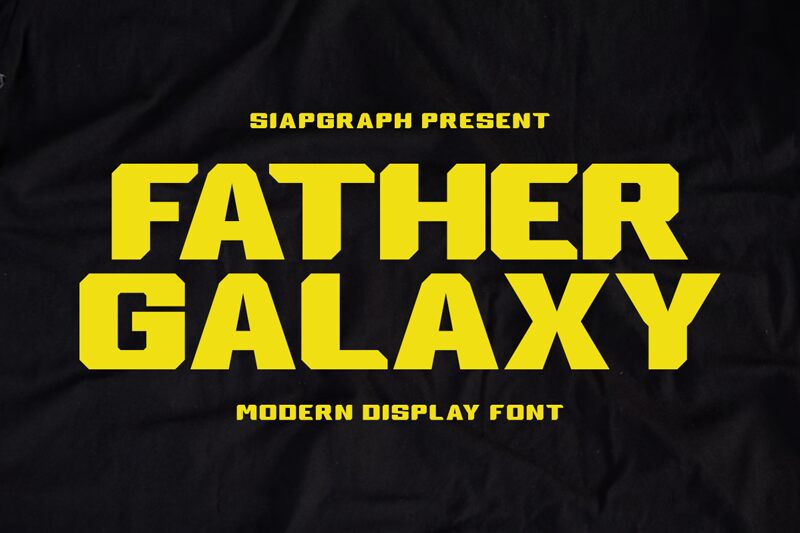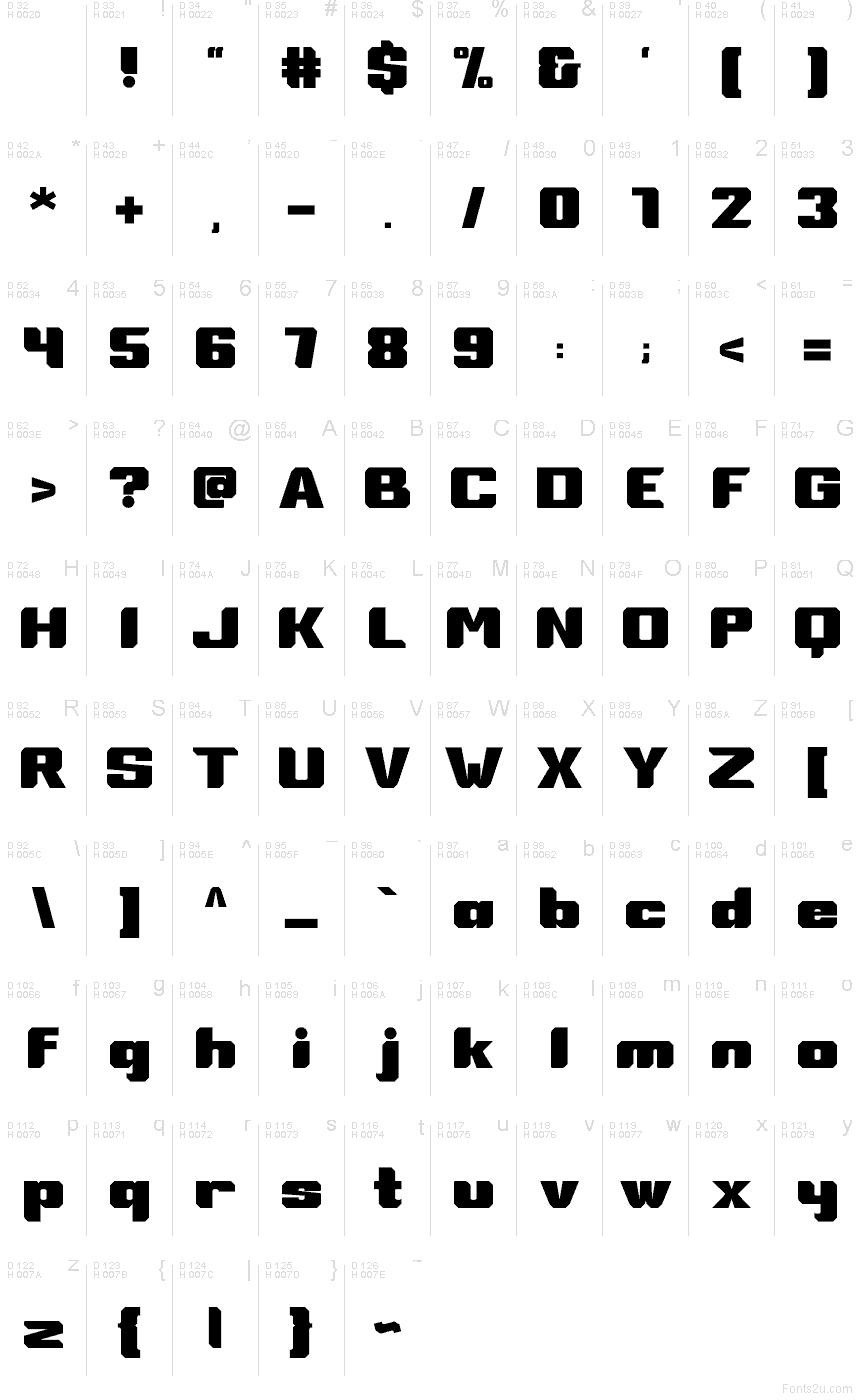
Father Galaxy by SiapGraph is a free retro-futurist display font with chunky letters, clipped corners, and a blocky arcade-era attitude. The forms feel built from hard geometric pieces, mixing broad weight with small notches and angled cuts that give the font a space-age, title-sequence mood.
It fits poster headlines, game branding, album covers, event flyers, and short logo work where a free font needs instant sci-fi character without drifting into novelty. Use it for title cards, big cover lines, or compact wordmarks, because the squared silhouettes and chamfered joins keep even short phrases feeling solid and machine-made.